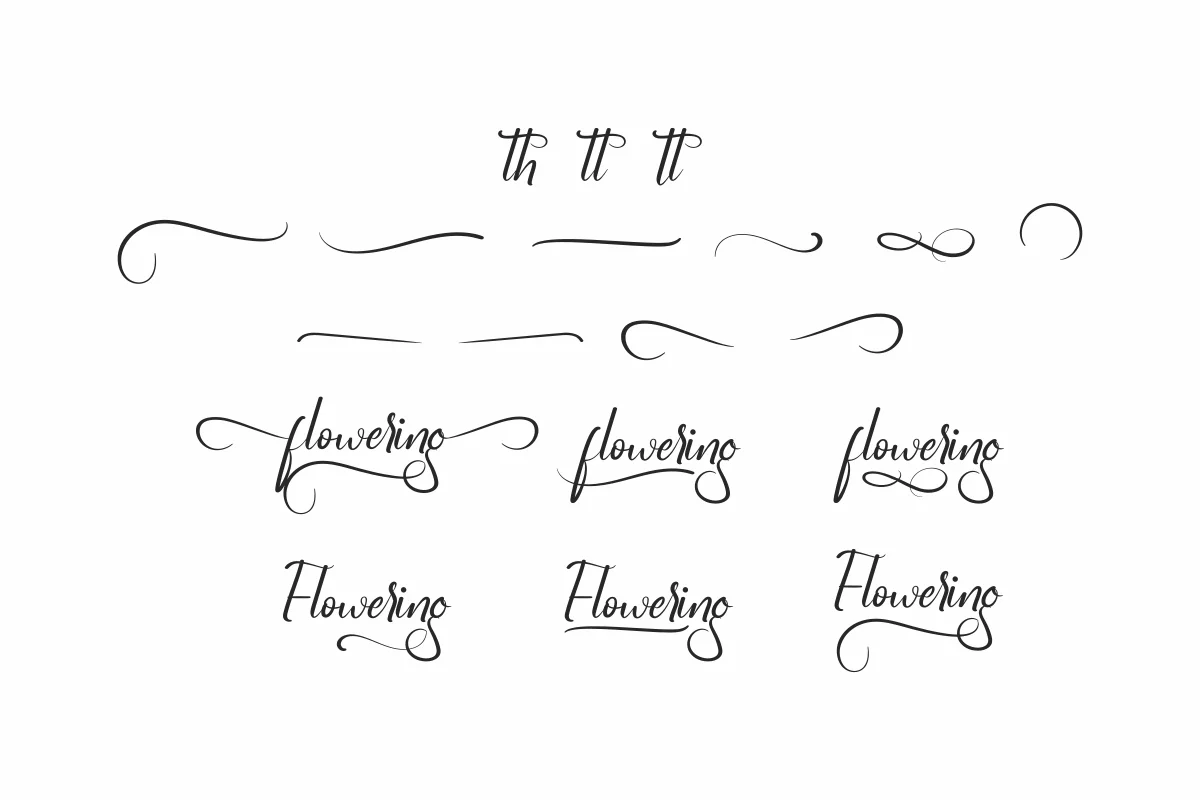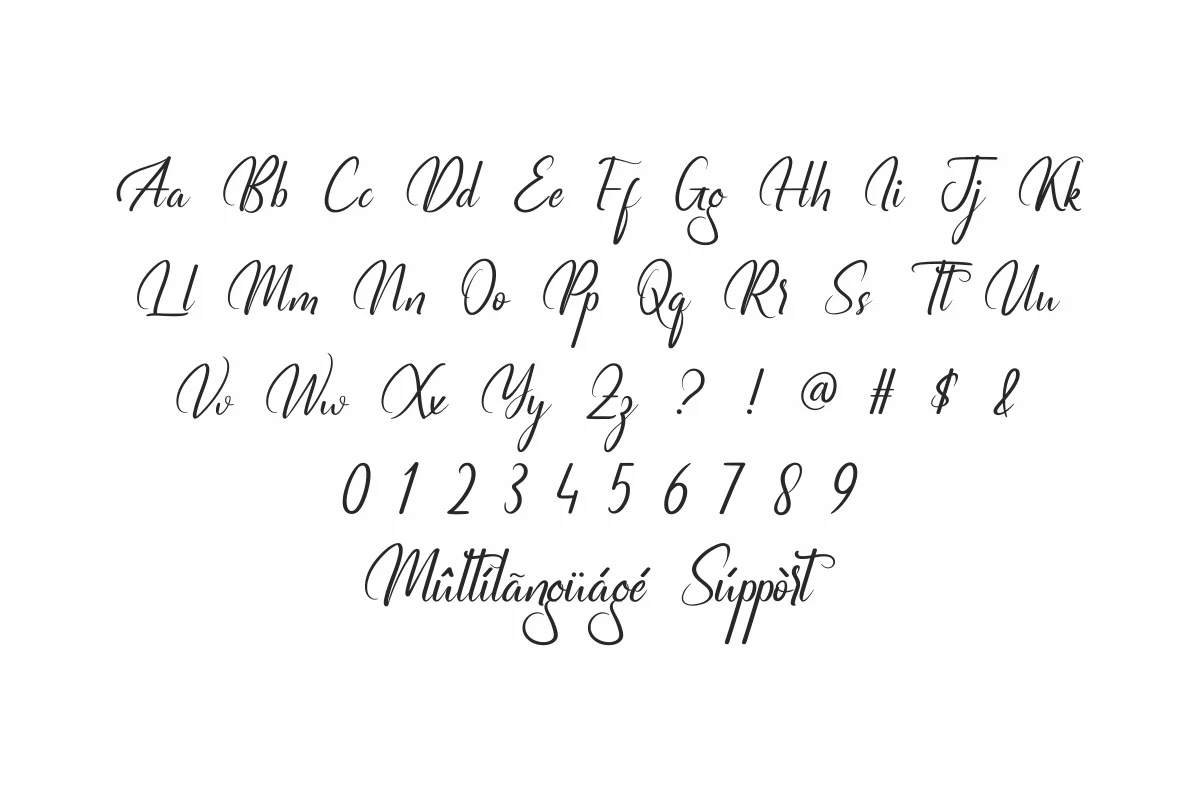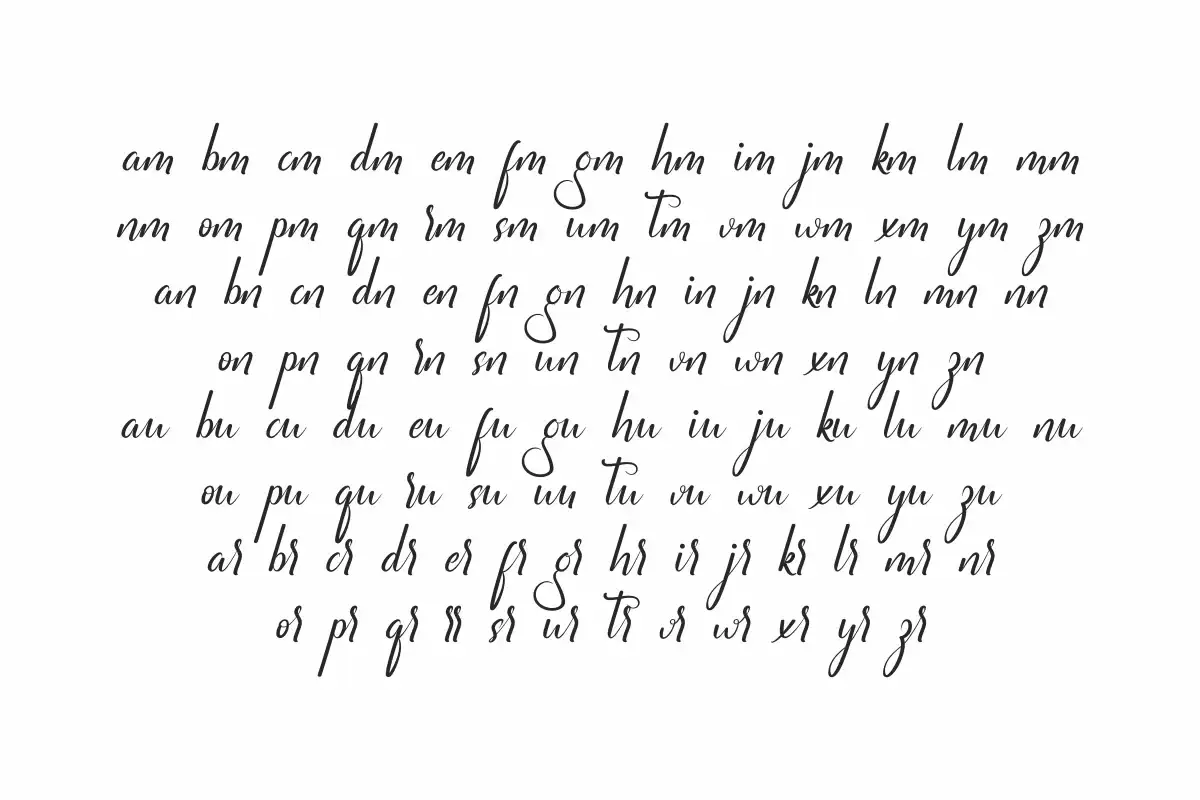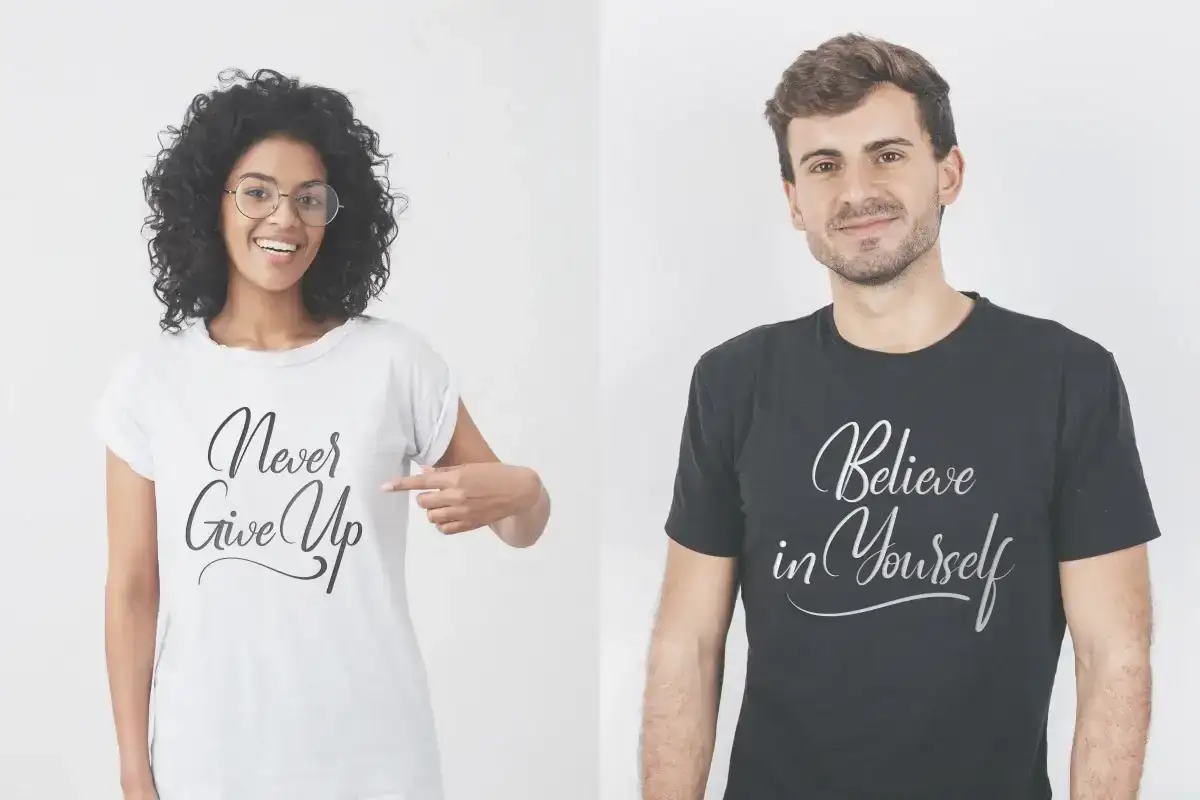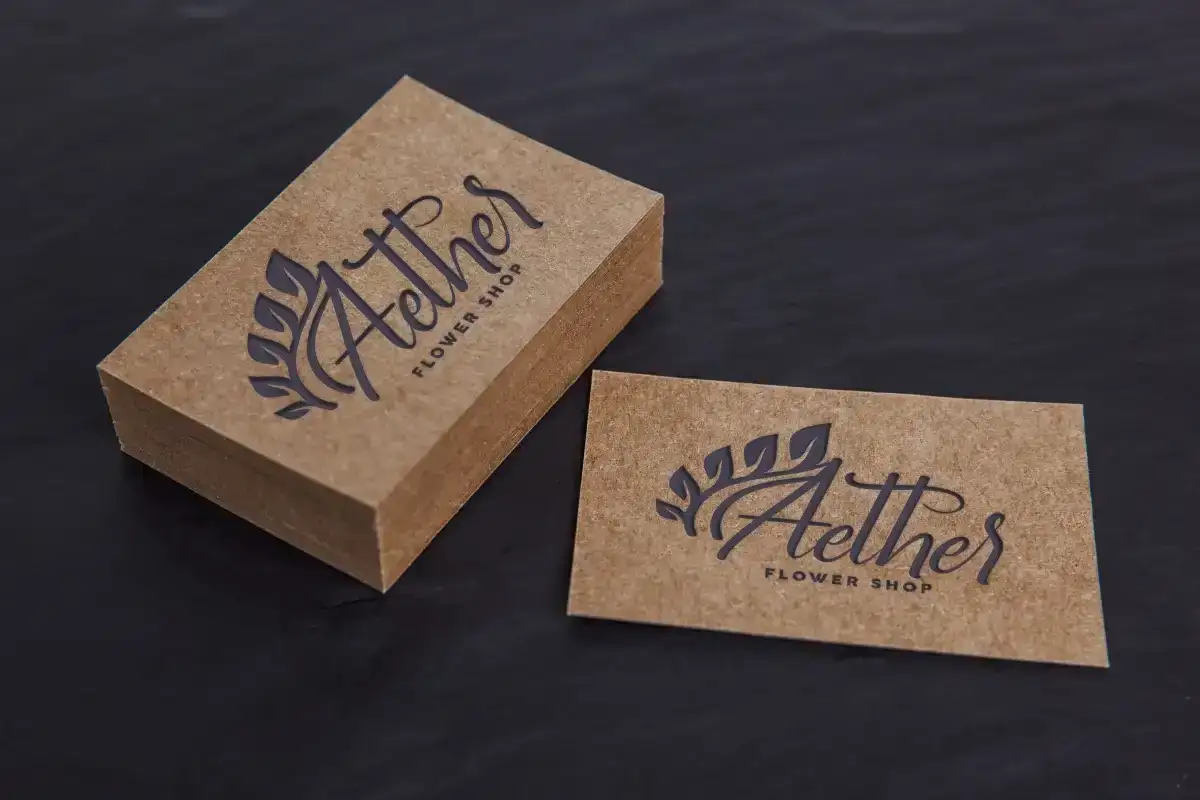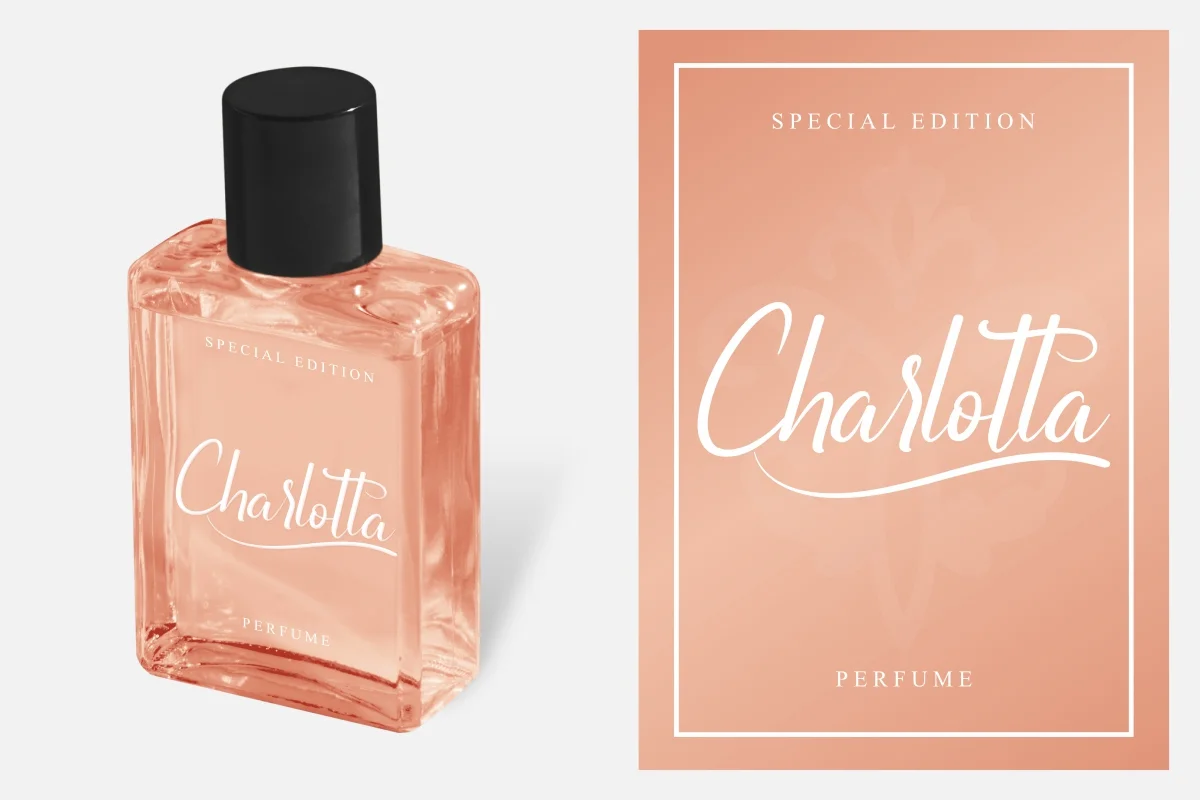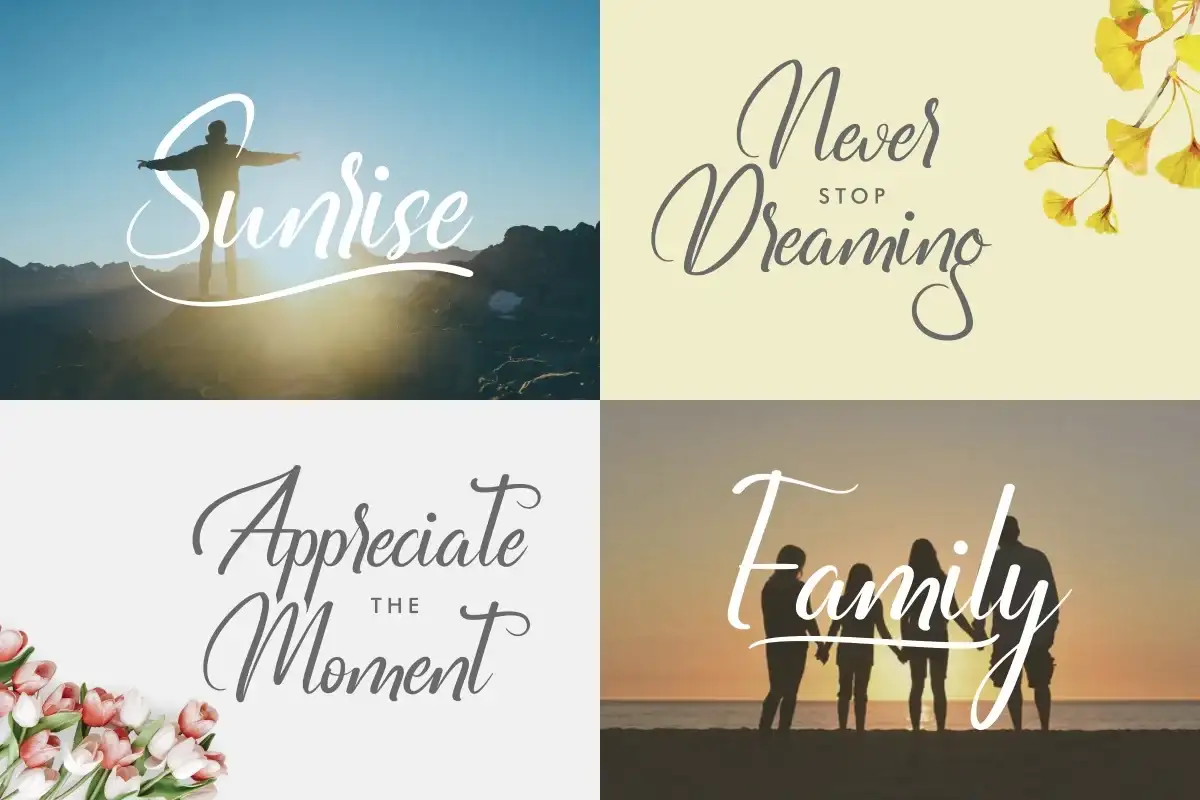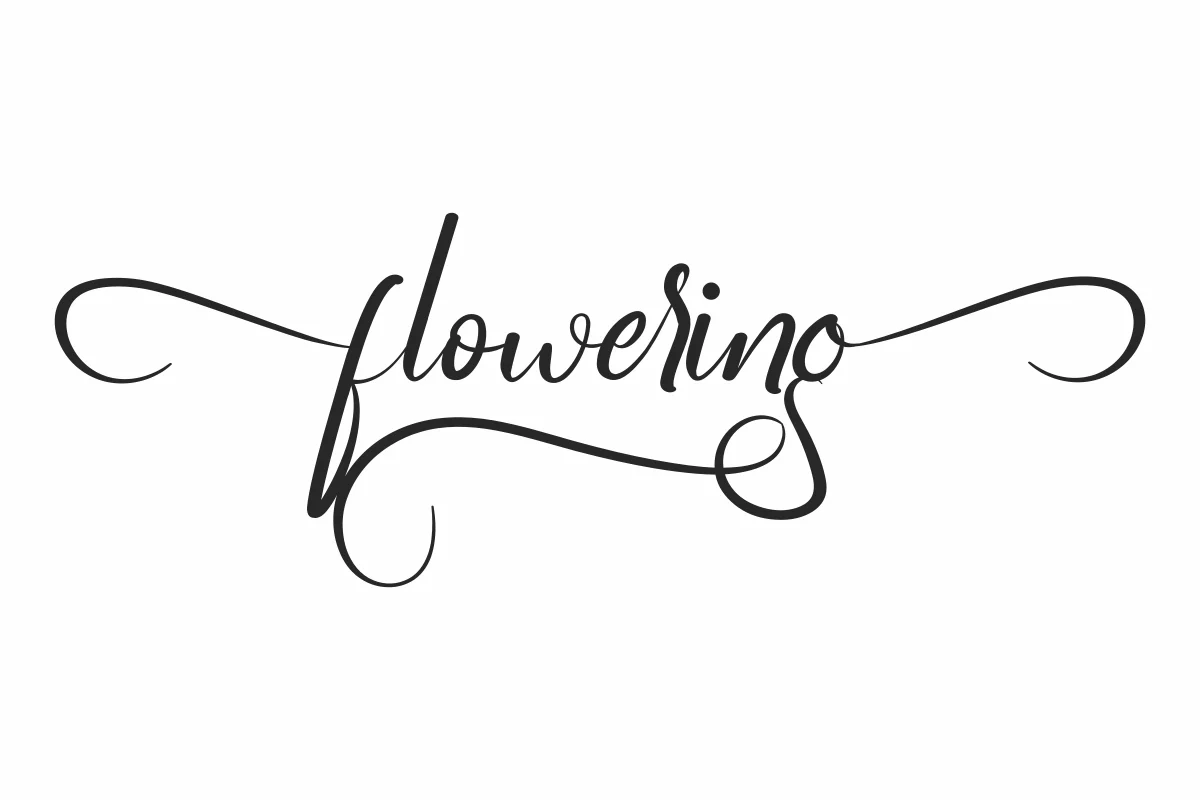
Flowering Font is an exclusive modern handwriting font by NihStudio
Flowering Font is a modern handwriting calligraphy font, originally made in 2020 by NihStudio Font Designer : Widi and Suci. On the package you will get :
The theme style of the font is modern, elegant, luxury, glamour, gold, vintage, stylish, sophisticated and classic light brush style. The font will be match for this typeface: wedding, events, real estate, architect, law firm, florist, gardening, makeup artist, travel, hotel, musician etc